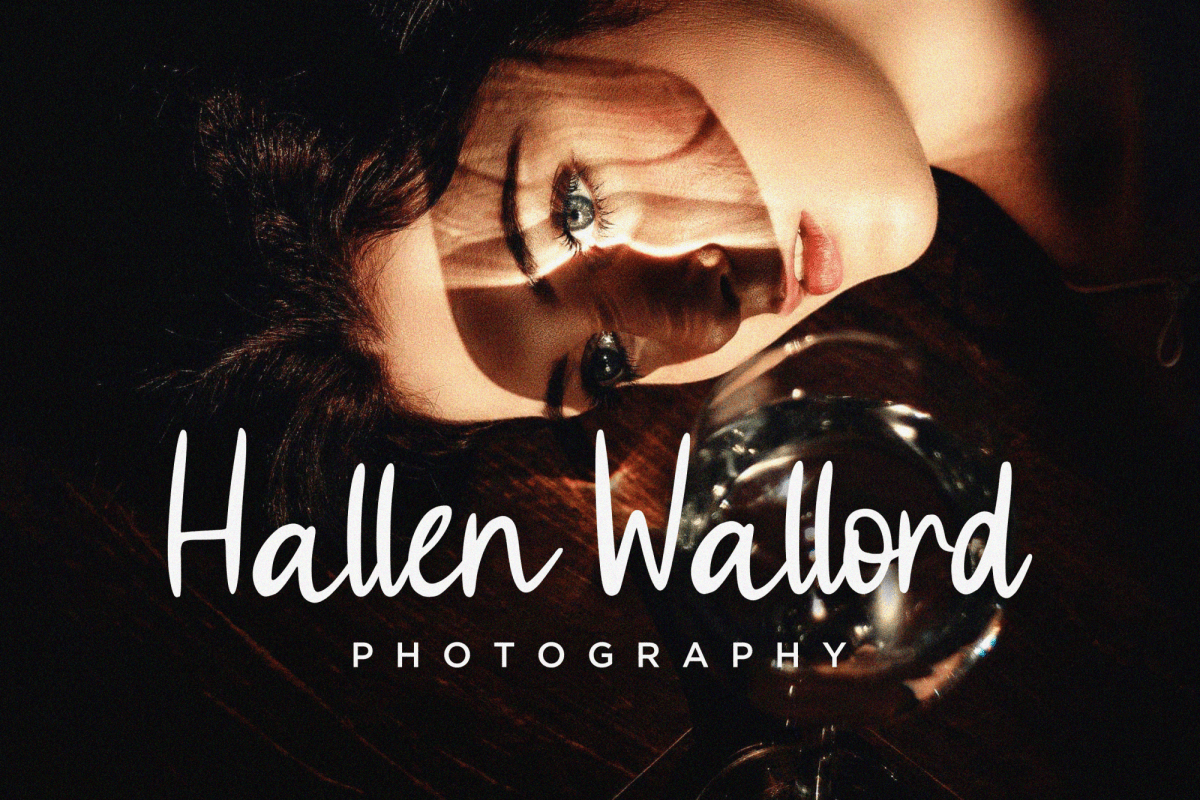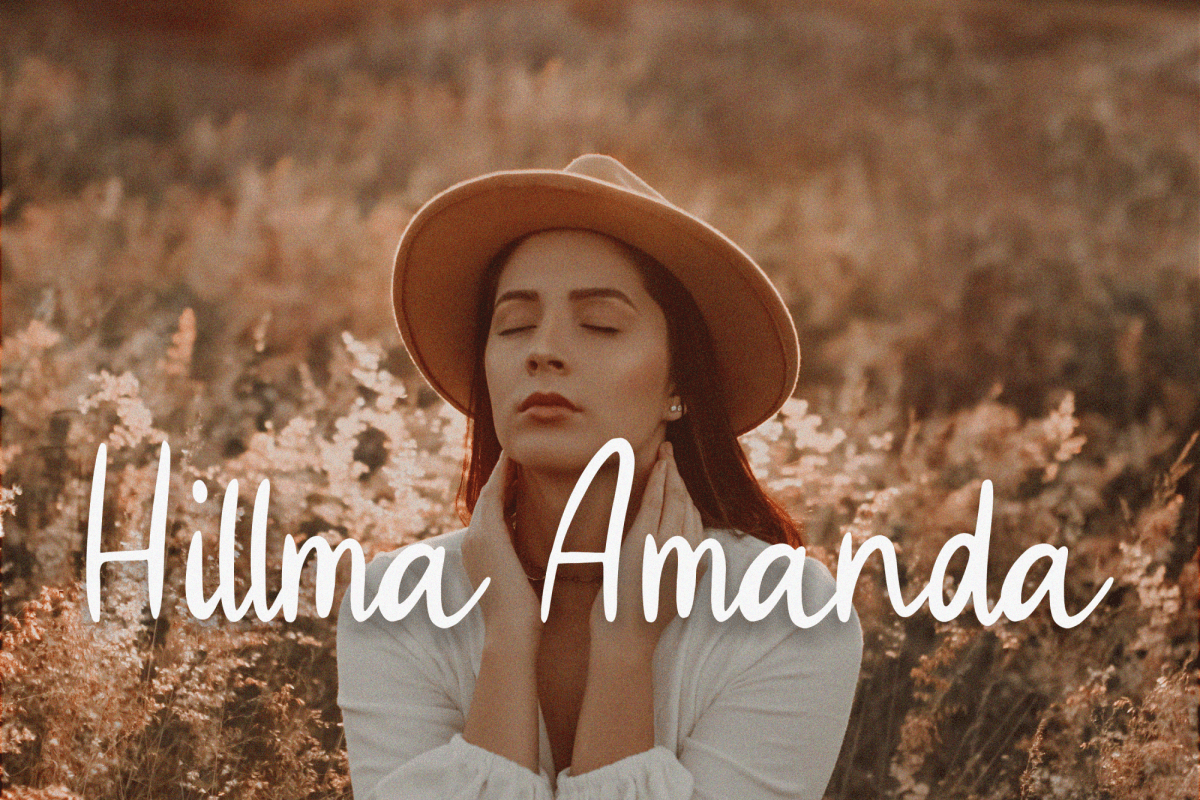
Jimmy Callight Font
Jimmy Callight Script Font
It’s a A Handwritten Font. Jimmy Callight is perfect for product packaging, branding project, megazine, social media, wedding, or just used to express words above the background.